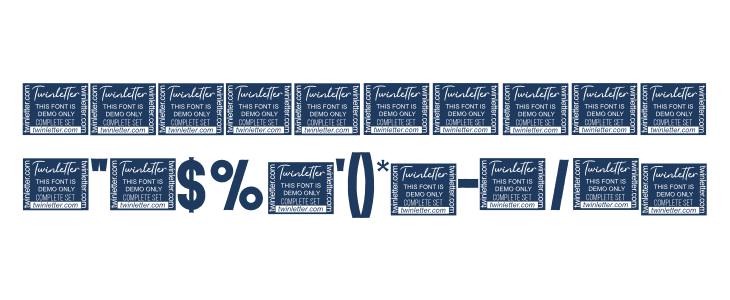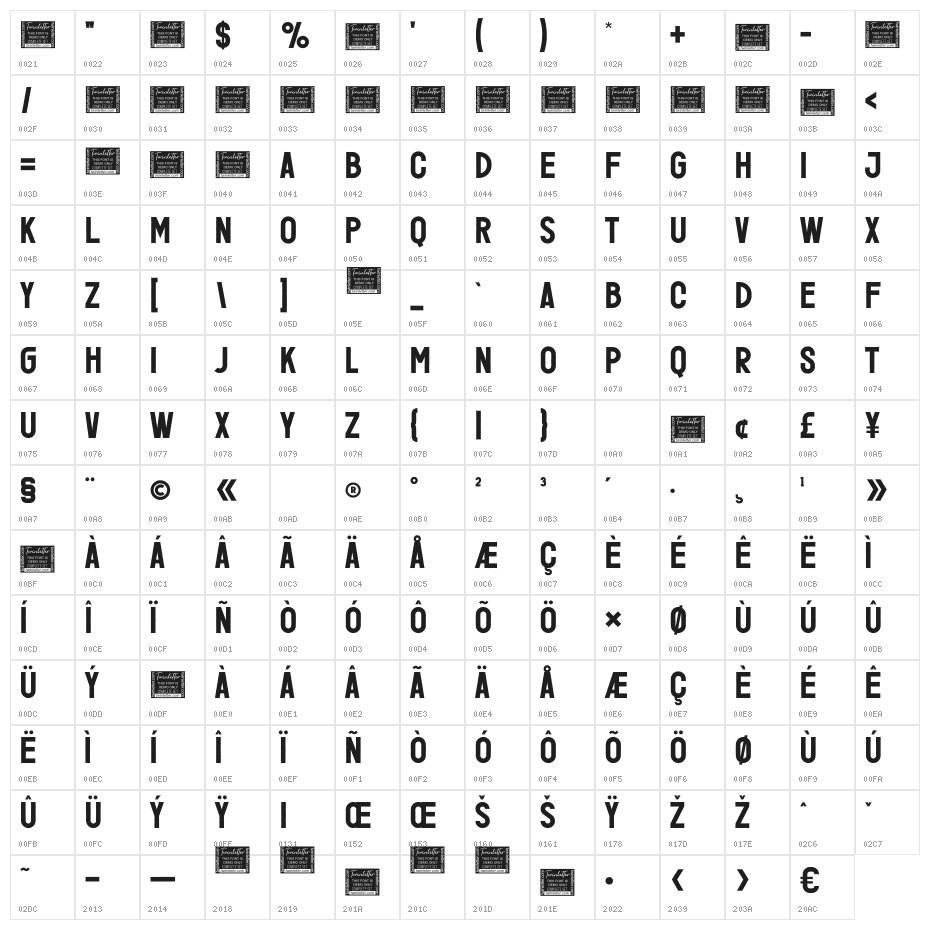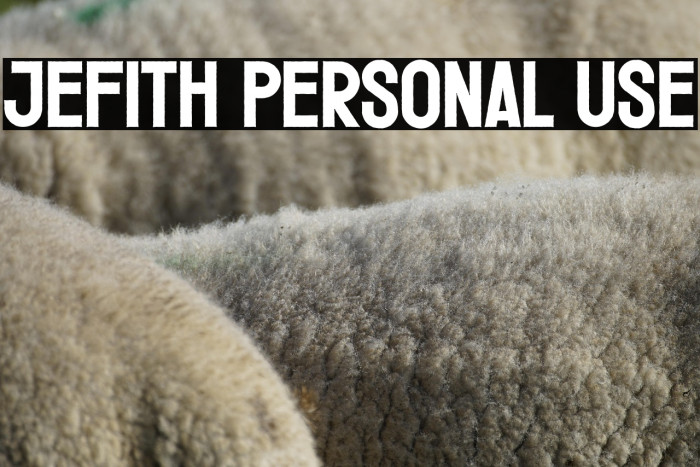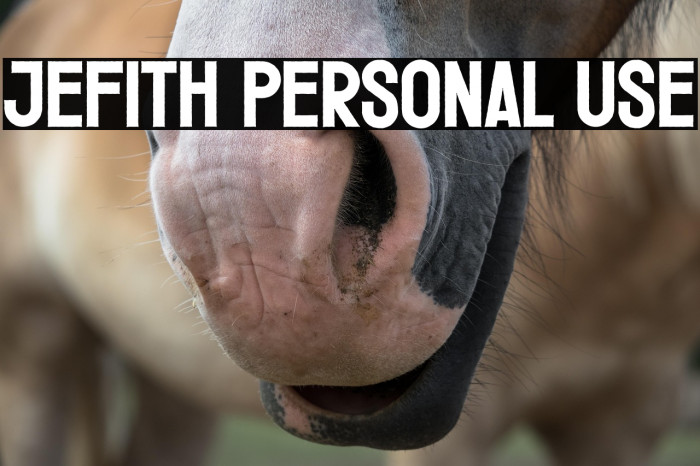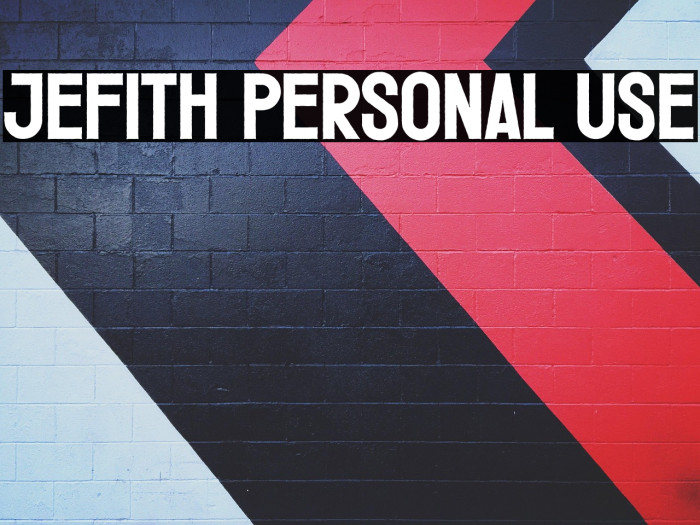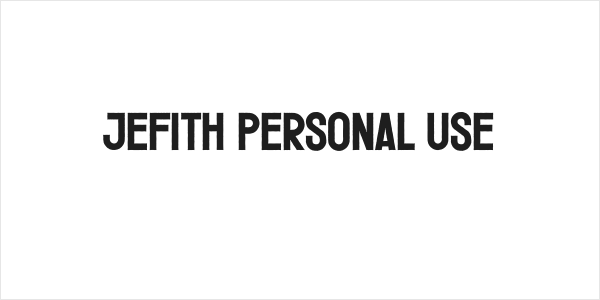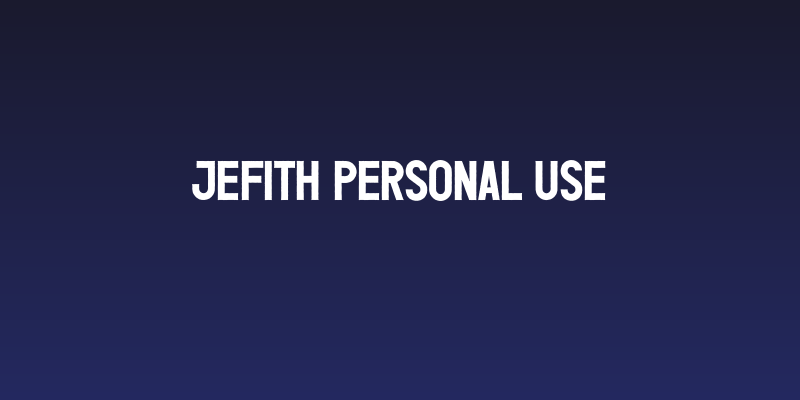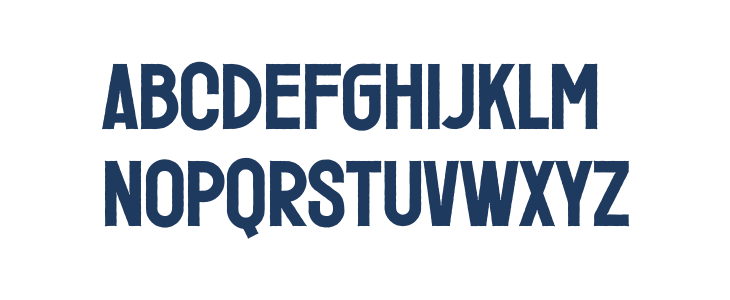
Jefith Personal Use Font
Jefith Personal Use Description
This font features bold, uppercase letters with a strong, geometric structure. The characters are uniform in width, giving a monospaced appearance, yet they maintain a distinct modern style. The strokes are thick and consistent, providing a high level of contrast against the background. The font's design is straightforward and impactful, making it suitable for attention-grabbing headlines or titles. Its clean lines and lack of serifs contribute to a contemporary aesthetic, while the boldness of the letters ensures readability from a distance.